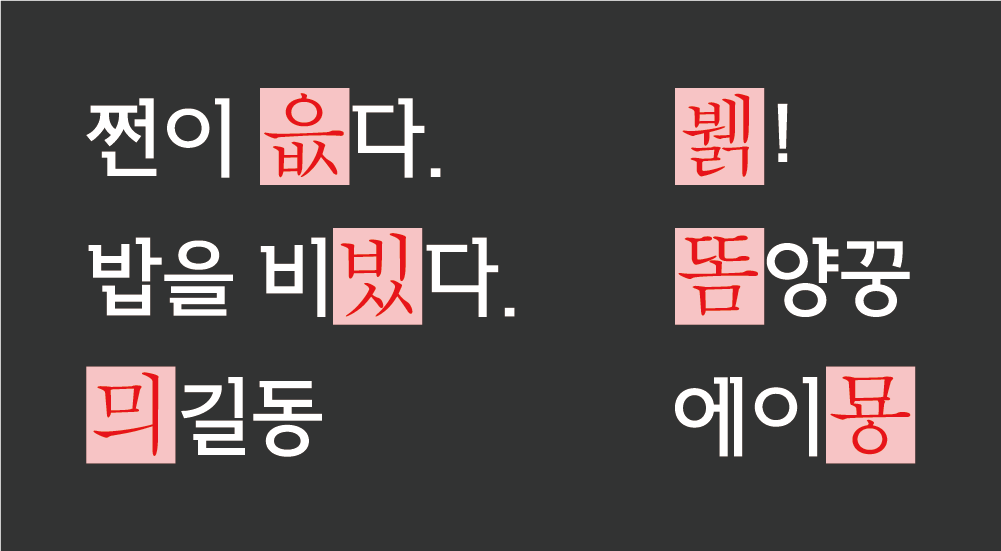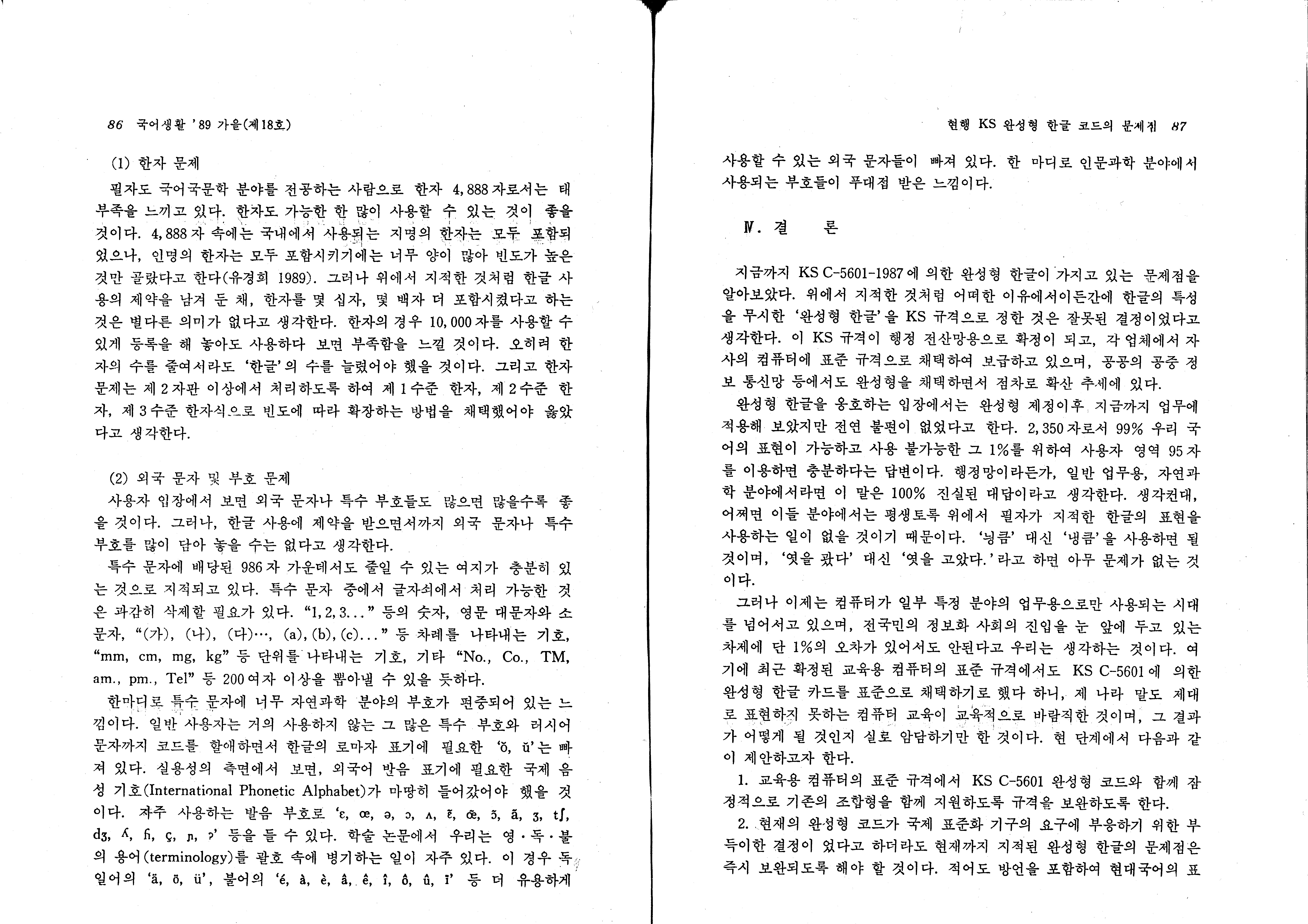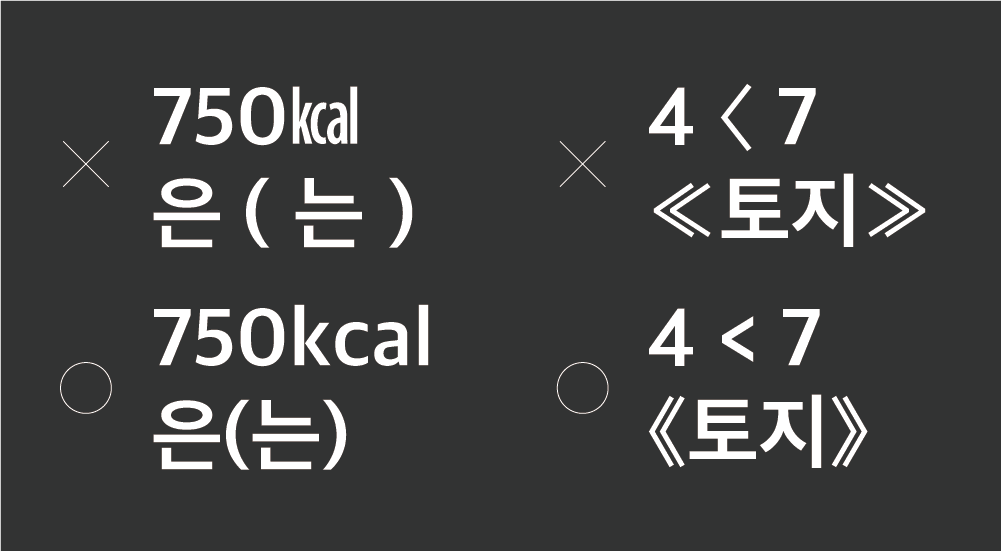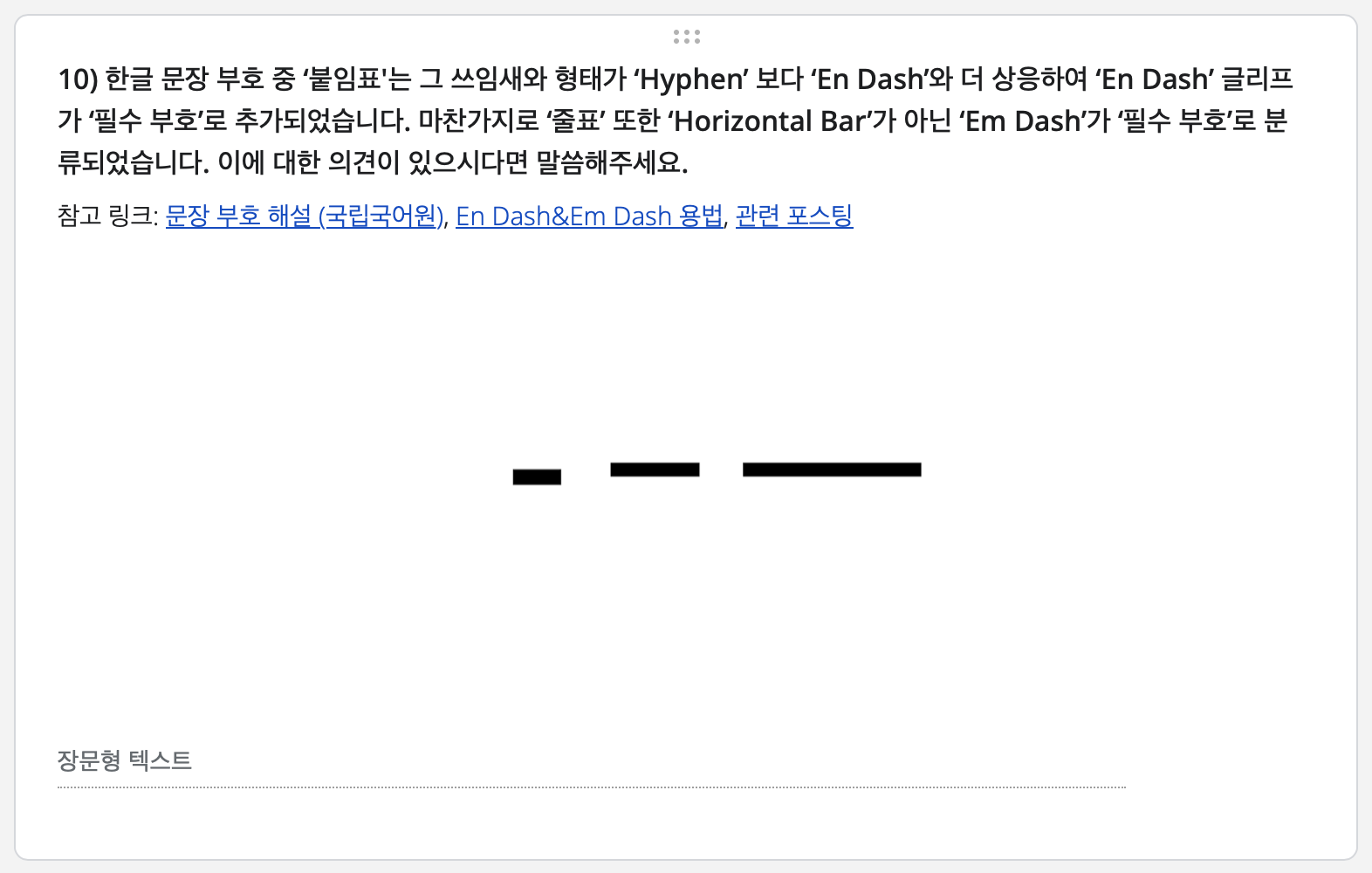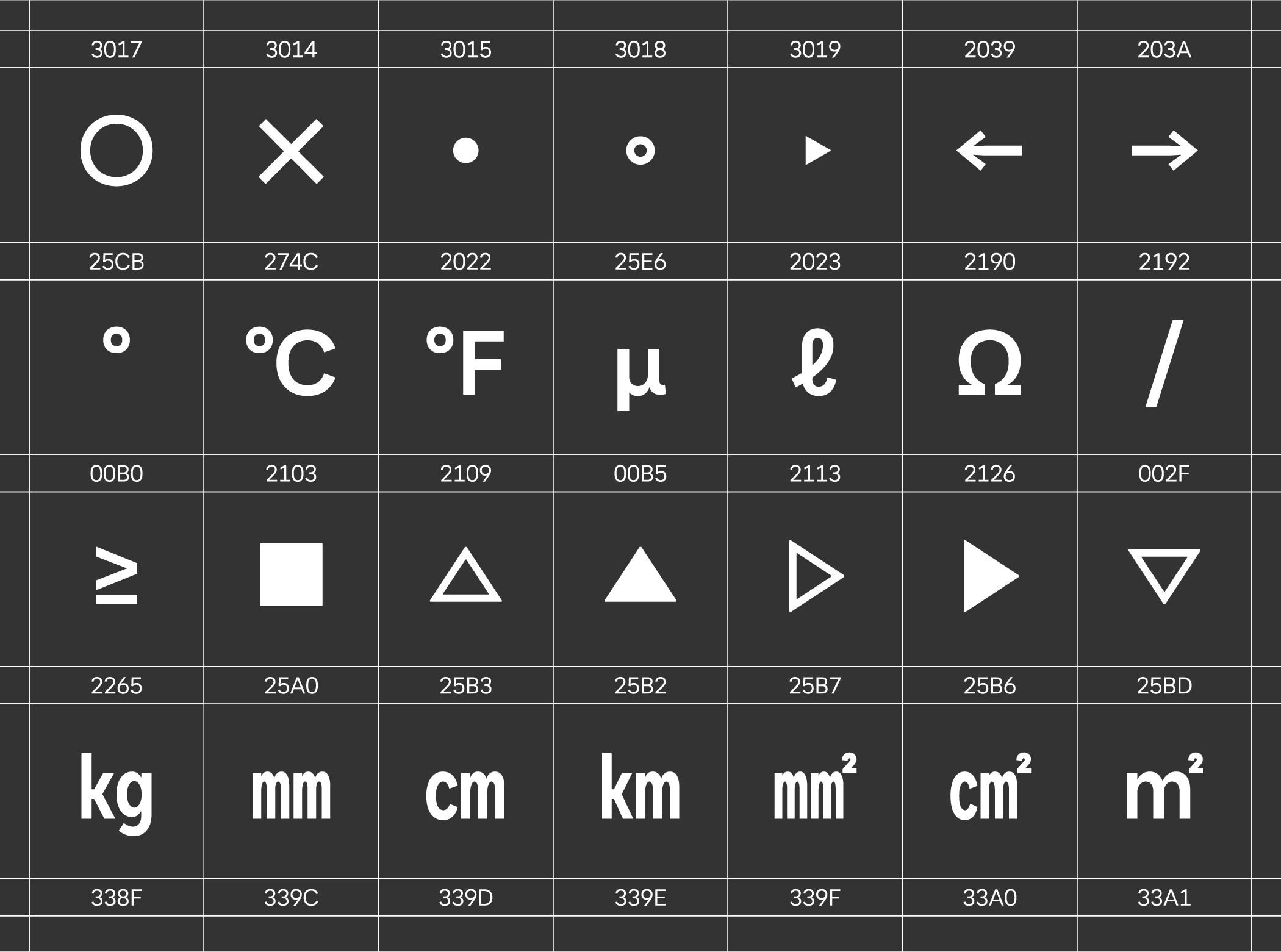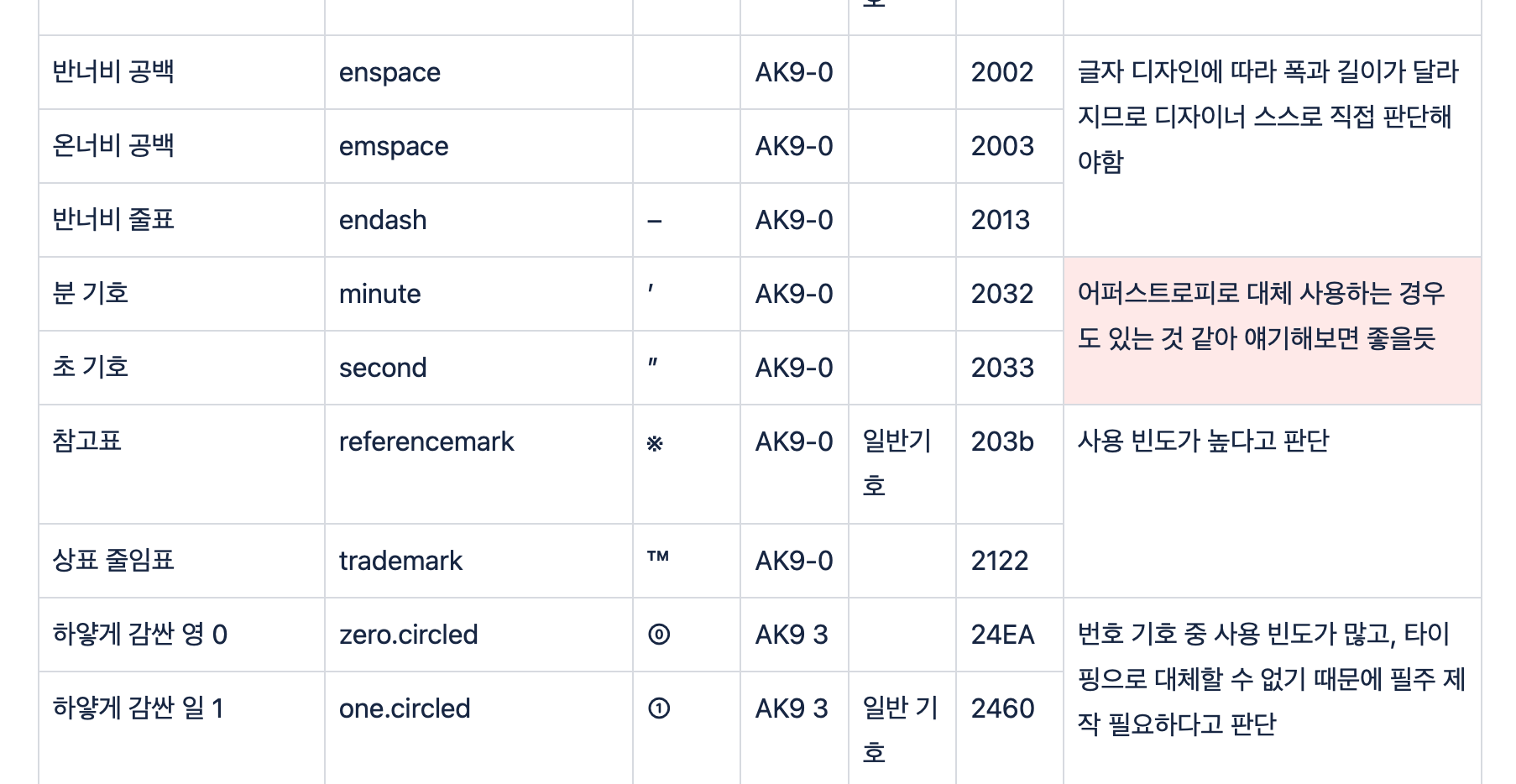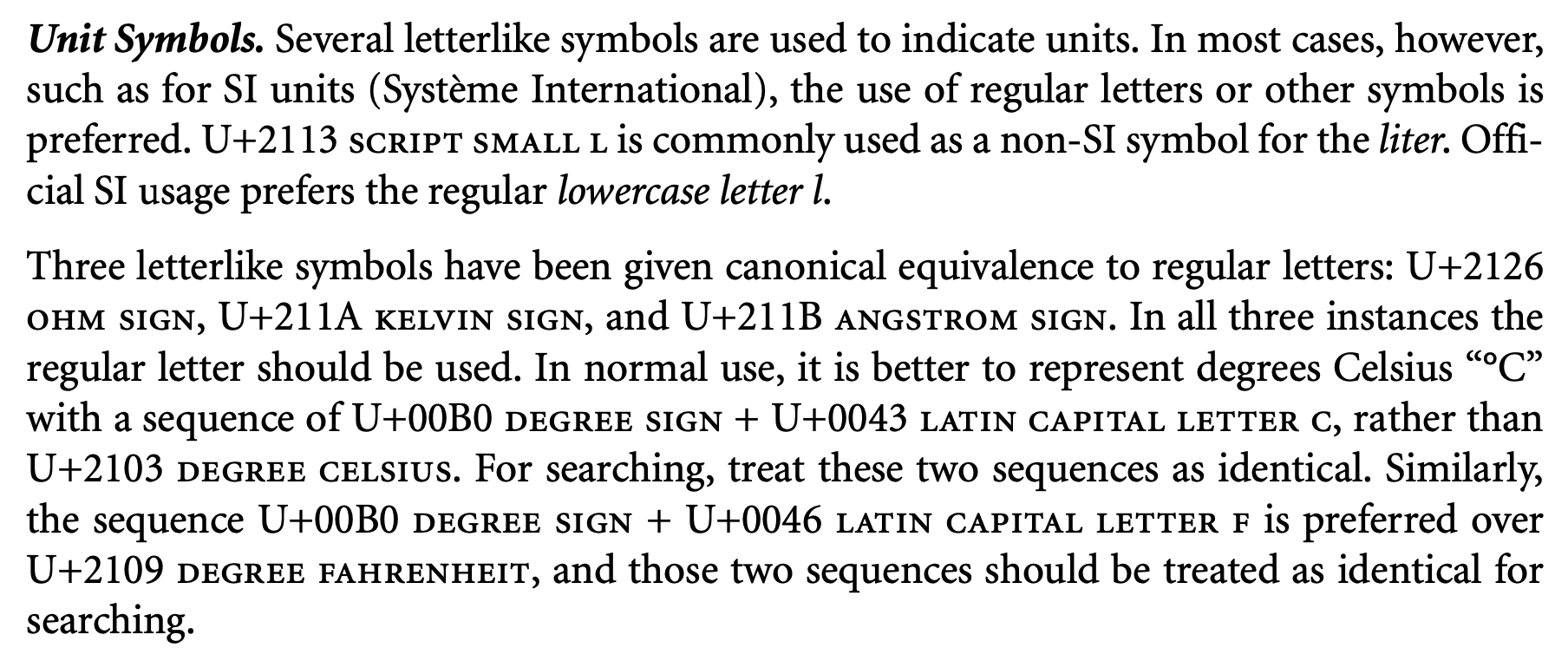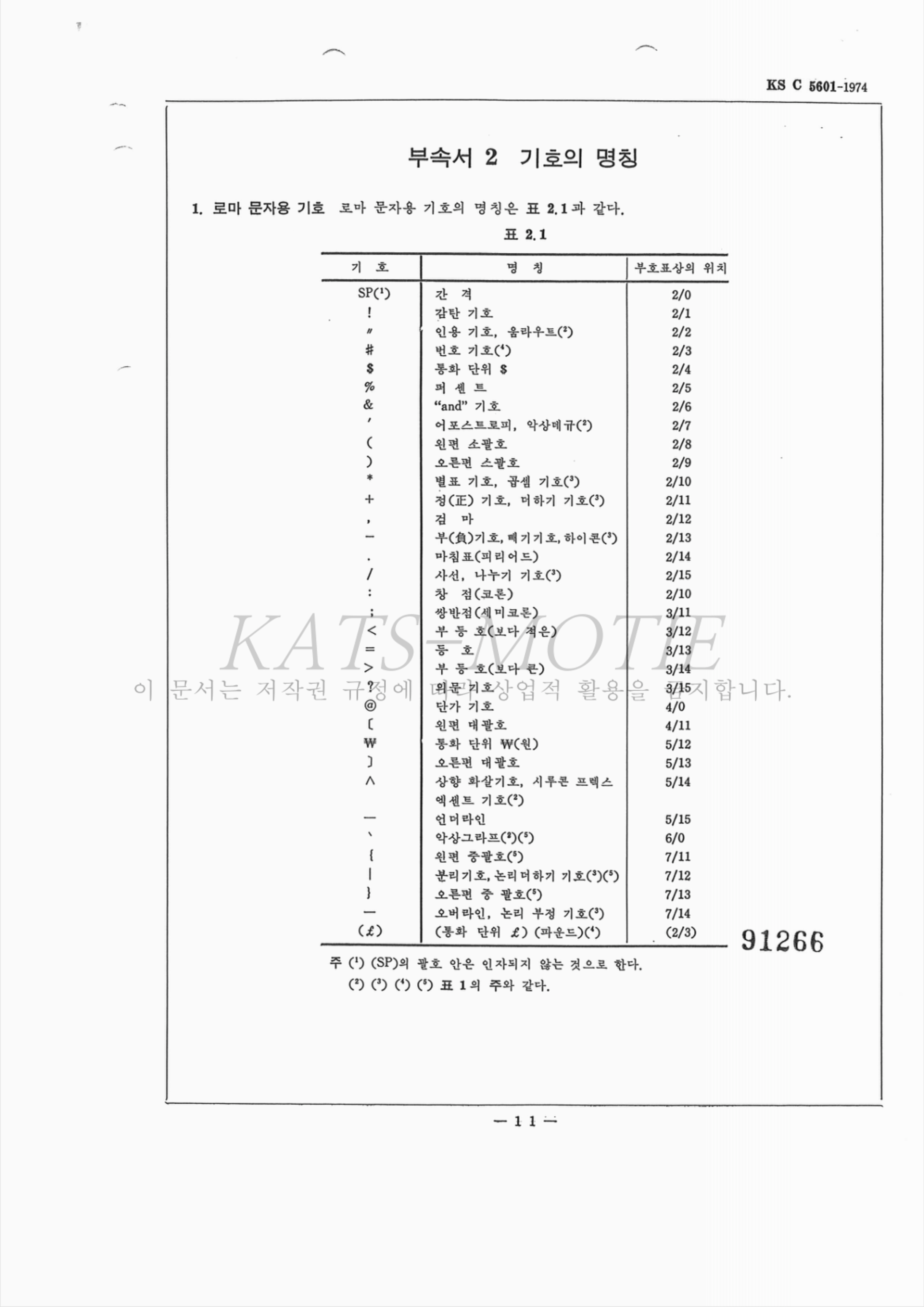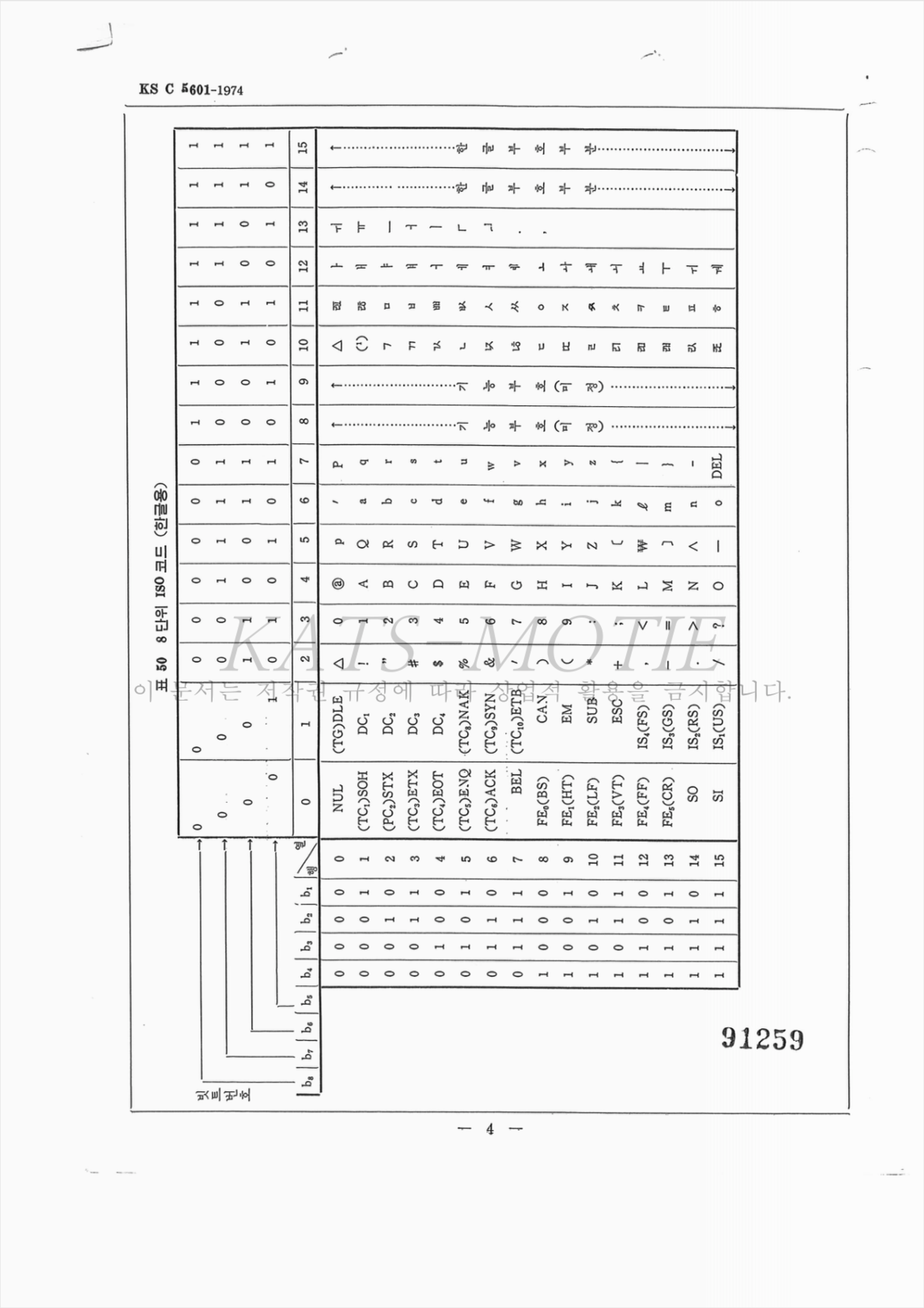
Introduction
Do you know which characters are included—or missing—in the fonts you use? You may have experienced finding a font you really like and applying it to your work, only to discover that certain characters won’t appear or are replaced by a default font. This happens because each font supports a different character set, meaning the characters included in a font file can vary. According to the Unicode Standard—an industry standard designed to consistently represent all characters worldwide on computers—nearly 160,000 characters have been registered to date. Since no single font can support all of them, fonts are built by selecting only the characters needed for specific users and usage environments. The Sandoll font standard (SD-KR) that we researched is also a Hangul font standard composed of carefully selected characters, designed with the environment of modern Korean users in mind. So how did this research begin, and how was it carried out? Let’s take a closer look.
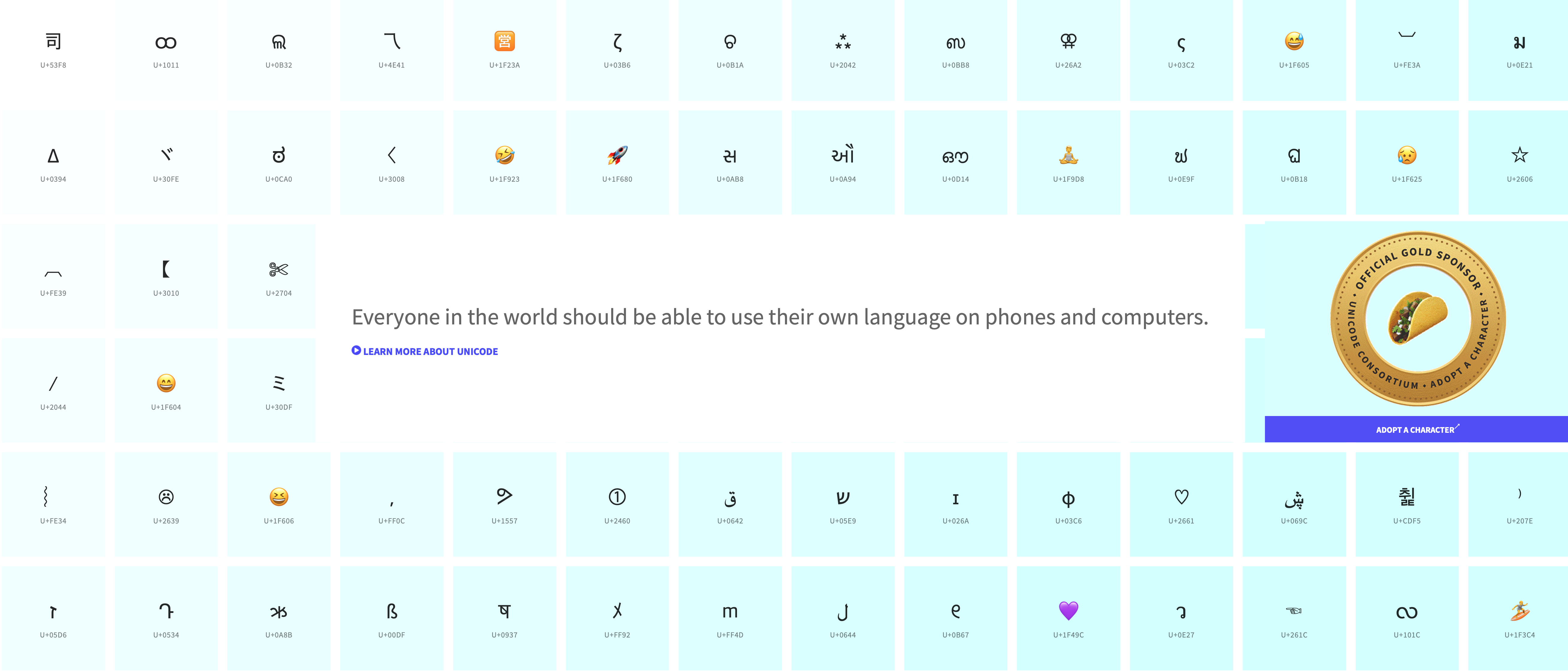
Unicode continues to collect characters in order to represent all written languages of the world.
Font Standard History — From Hangul 2,350 to 11,172, and to 2,780
Have you ever seen descriptions such as “Hangul 2,350 / Latin 95 / Symbols 985” on the Sandoll Cloud website or other platforms? This information indicates a font’s character support range—in other words, which characters are included in the font and what it supports. Specifically, it means that the font contains 2,350 Hangul characters, 95 basic Latin characters including the alphabet, punctuation, and numerals, and 985 symbols*, such as numbers, shapes, pictograms, and unit symbols. So where does the number “2,350 Hangul characters” come from?
Modern Hangul can form a total of 11,172 characters by combining consonants** such as ‘ㄱ, ㄴ, ㄷ’ with vowels*** such as ‘ㅏ, ㅗ, ㅘ’, which together make up jamo****. In 1974, the Korean Standards Association established KS C 5601-1974 (Code for Information Interchange) to assign standardized codes for Hangul in computing systems. At the time, it adopted a compositional Hangul input method, which combined 51 jamo, meaning there was effectively no limitation on the number of Hangul characters that could be entered. In addition, codes were assigned for a standard set that included basic Latin and Roman symbols (34 characters) and Hangul-related symbols (13 characters). While this standard was designed with domestic usage environments in mind, it caused conflicts with the internationally used ASCII code (ASCII Code), leading to issues with international compatibility.
* Symbols: In printing, symbols other than standard letterforms. For clarity and ease of communication, the terms yakmul, symbols, and special characters are unified under the term symbols in this article.
** Datja (consonant): A shortened term for consonant letters that produce sound when combined with vowels.
*** Holja (vowel): A shortened term for vowel letters that can produce sound on their own.
**** Jjokja (jamo): The basic units that make up individual Hangul characters.
***** Encoding: Character encoding. The process of converting characters into codes according to predefined rules, or the set of code-mapping rules established for this purpose.
Table specifying the 8-bit ISO codes for Roman characters and Hangul characters in KS C 5601-1974.
Table explaining the shapes, names, and code table positions of Roman character symbols in KS C 5601-1974.
After this, the Unicode Consortium began preparing an international industry standard—Unicode 1.0—using ISO 2022 (an ISO standard for character encoding), with the goal of assigning a unique code to each character so that different scripts could be represented consistently anywhere in the world. To secure the Hangul block (approximately 8,192 characters) within the two-byte code space allocated for CJK (Chinese, Japanese, and Korean) characters, Korea revised KS C 5601-1987 in 1987 to conform to ISO 2022 and submitted it to the ISO (International Organization for Standardization).
Within this pool of roughly 8,000 code points, space had to be allocated not only for Hangul but also for Hanja, symbols, and characters from other languages used alongside Hangul. From the remaining slots, 2,350 characters were designated as precomposed Hangul. The selection of these 2,350 characters was based on research into frequently used Hangul characters conducted by institutions such as the Korea Research Institute of Standards and Science and KAIST. This research analyzed Hangul usage across printing houses and newspaper organizations, industrial sectors, as well as books and dictionaries.
The resulting set of “Hangul 2,350 characters” has survived to this day and has become the minimum standard specification for Hangul fonts.
Explanation of the method used to select Hangul character units during the 1987 revision, from the commentary on KS X 1001:2004.
(Image source – standard.go.kr)
While the 2,350 Hangul characters were generally sufficient for everyday use, the standard faced criticism at the time of its adoption across many fields—including education—due to limitations such as the inability to represent dialects and loanwords, constraints on literary expression, and the lack of characters required for proper Korean orthography. As a result, in 1992, the Korean Standards Association adopted the combinational Hangul encoding widely used in the private sector and introduced it as a parallel standard under KS X 1001:1992, incorporating all 11,172 Hangul characters into the specification.
In addition, as ISO 10646—an international standard capable of encoding a far larger number of characters—was standardized globally, all 11,172 Hangul characters were included in Unicode 2.0. Adobe’s character collection standard, Adobe-Korea 1-2, also adopted KS X 1001:1992, thereby supporting the full set of modern Hangul characters.
* KS X 1001:1992: With changes to the KS numbering system, the standard was renumbered as KS X 1001. It is also referred to as KS C 5601-1992.